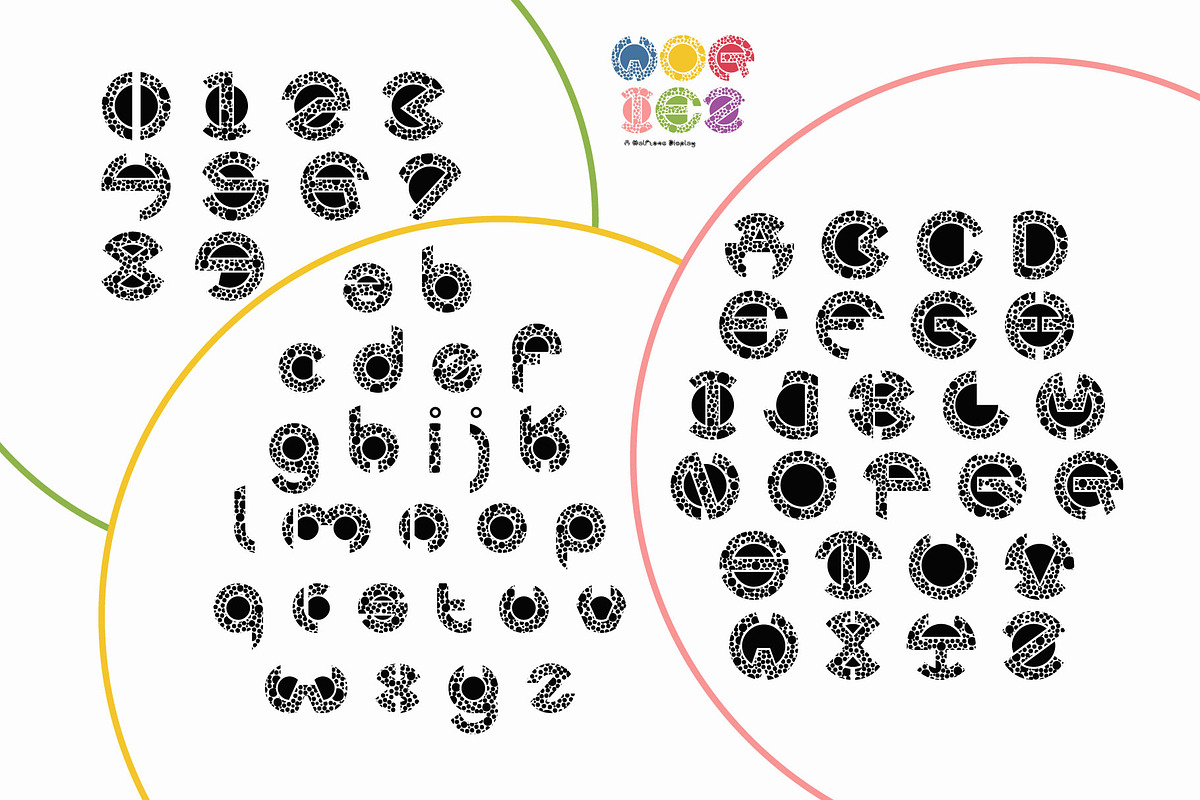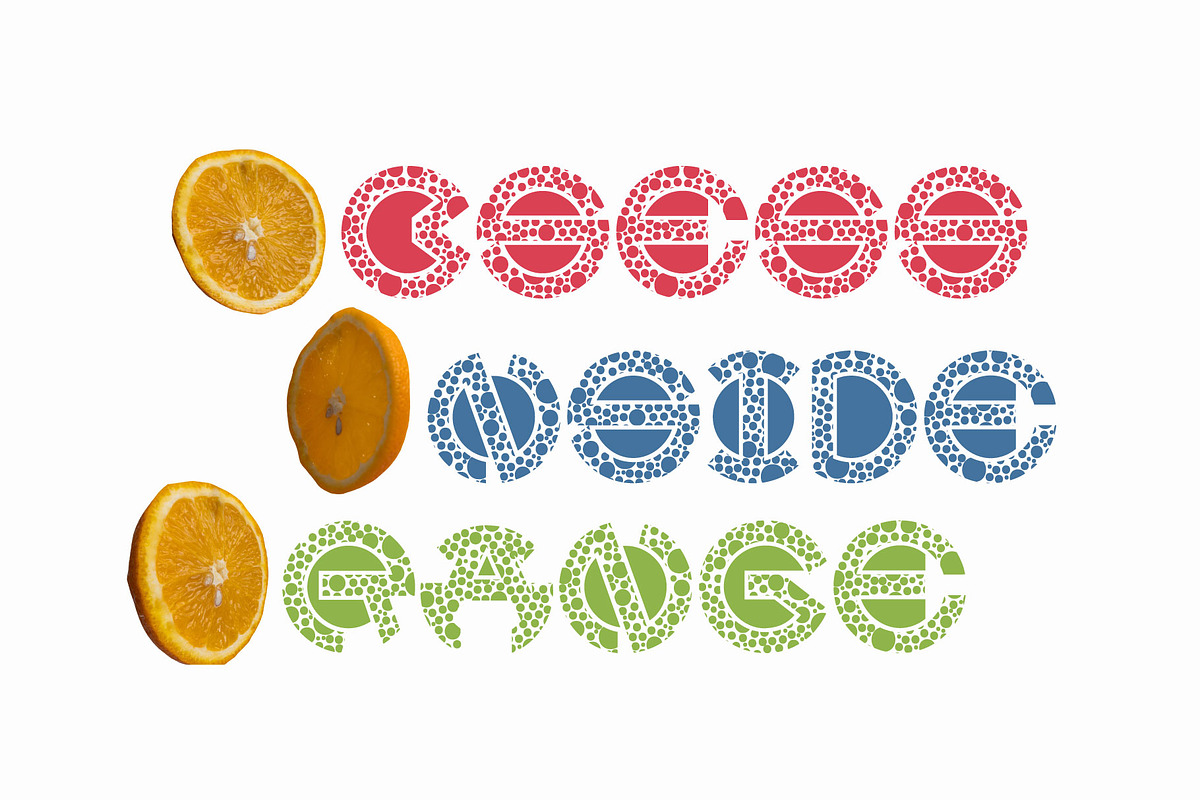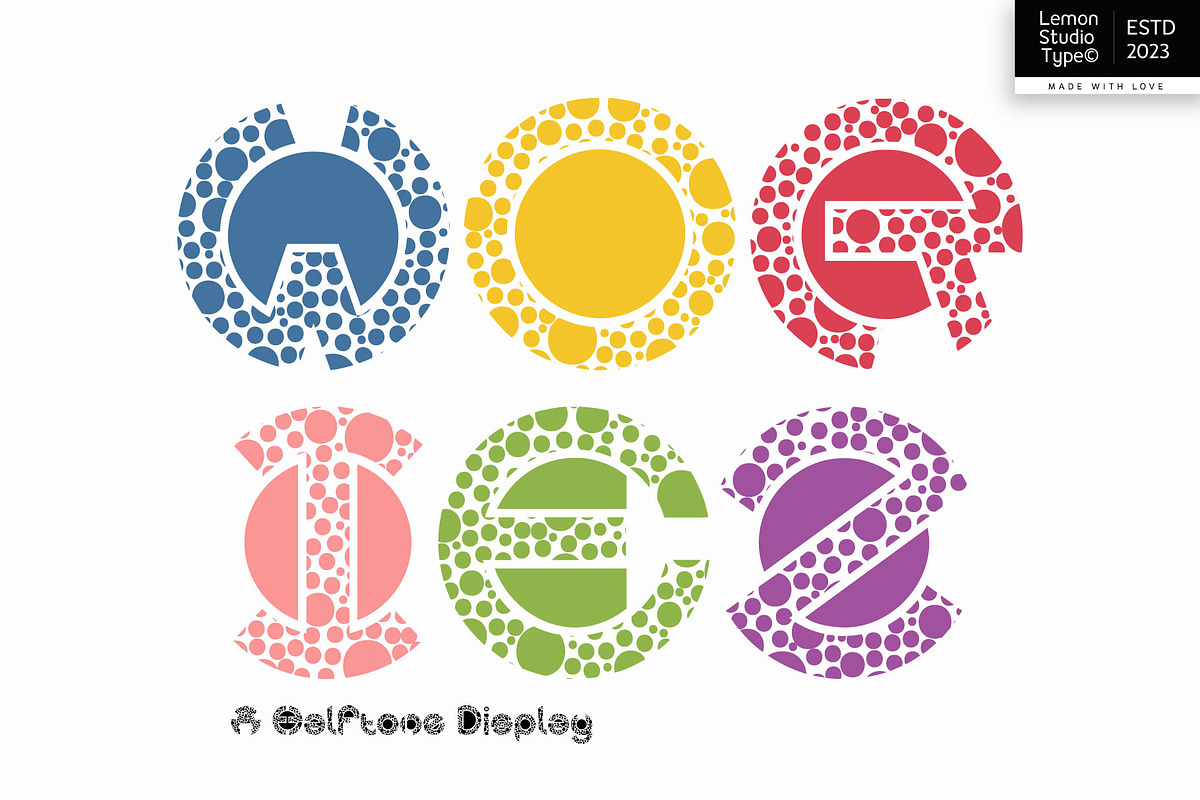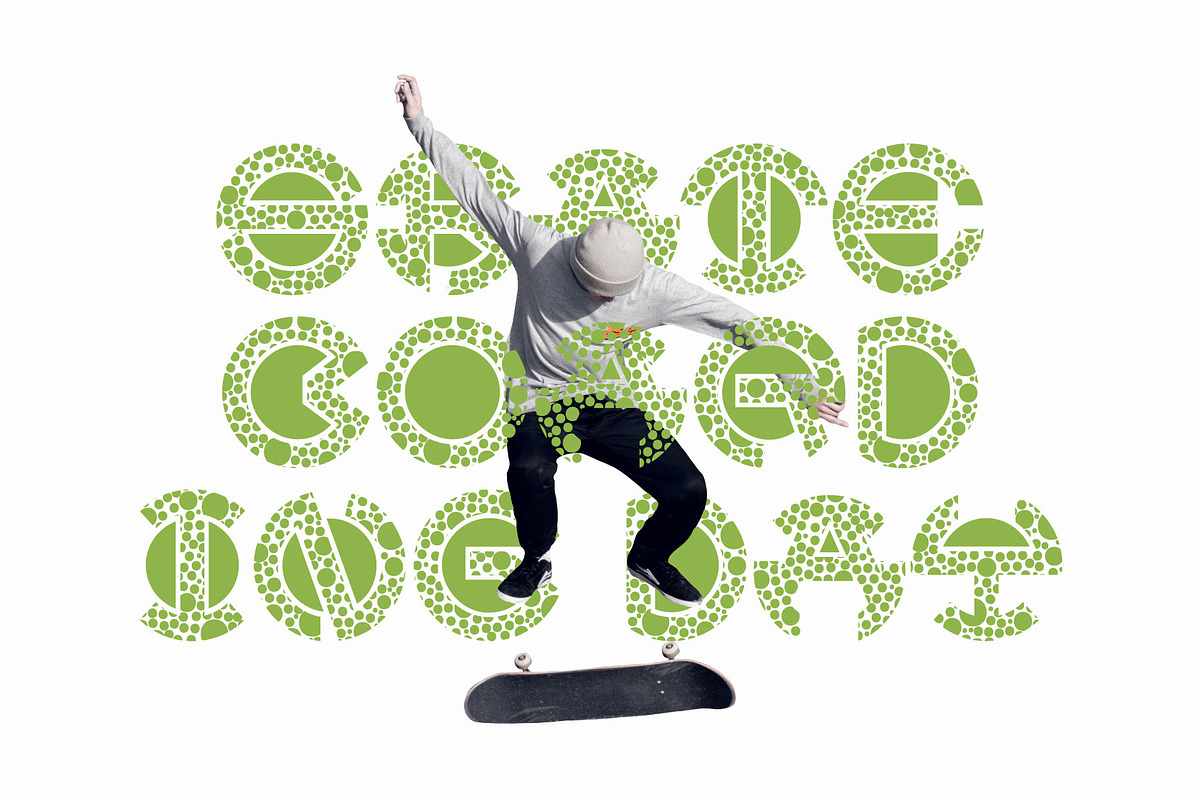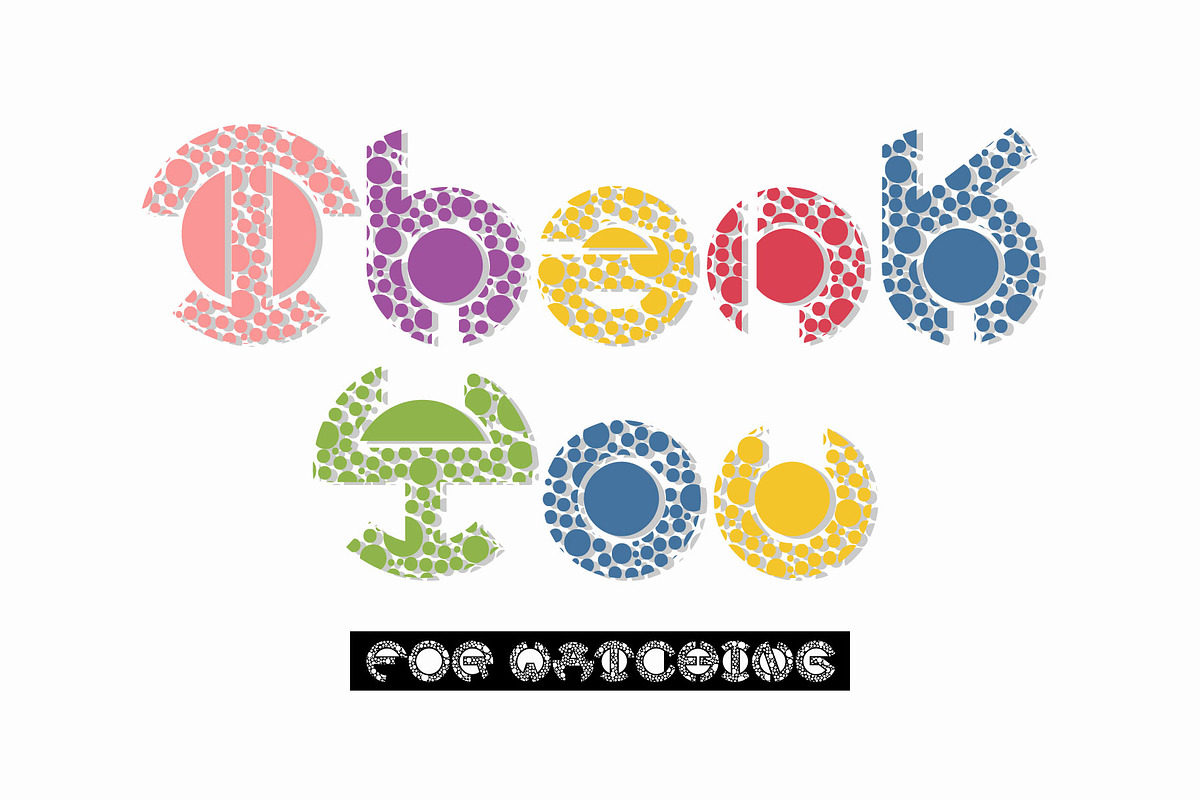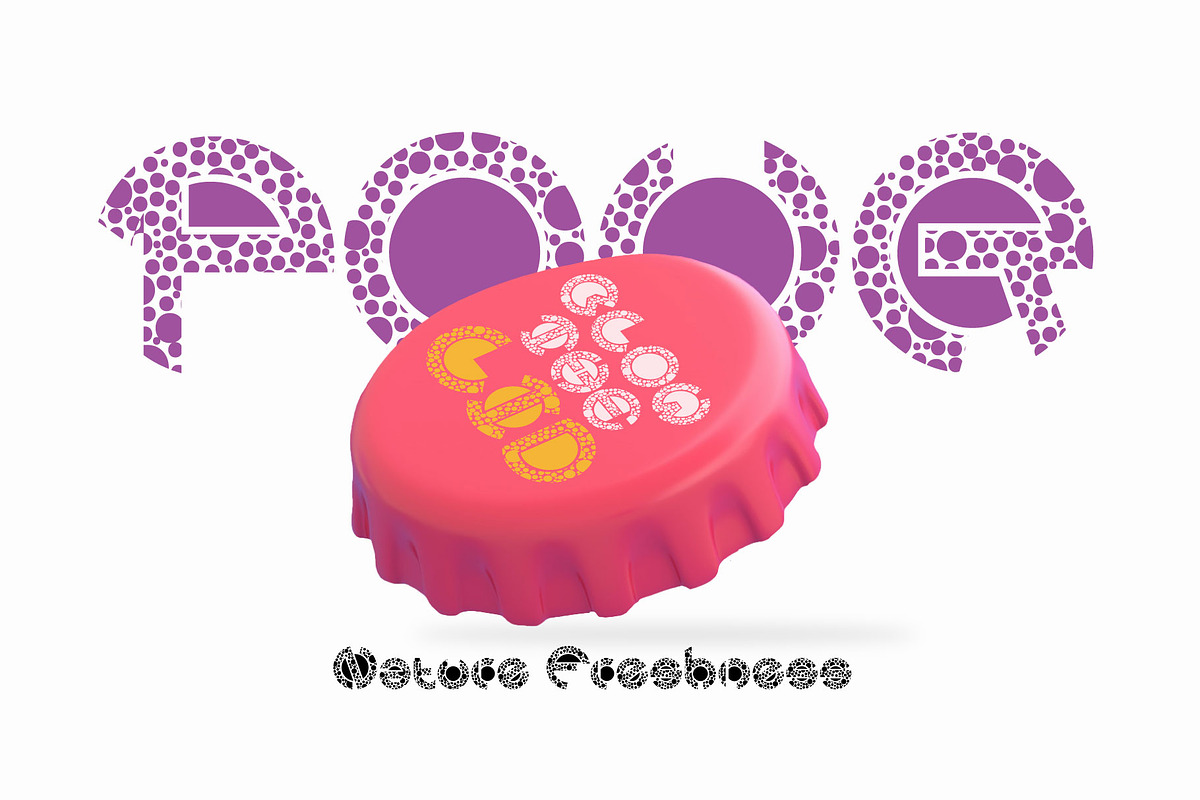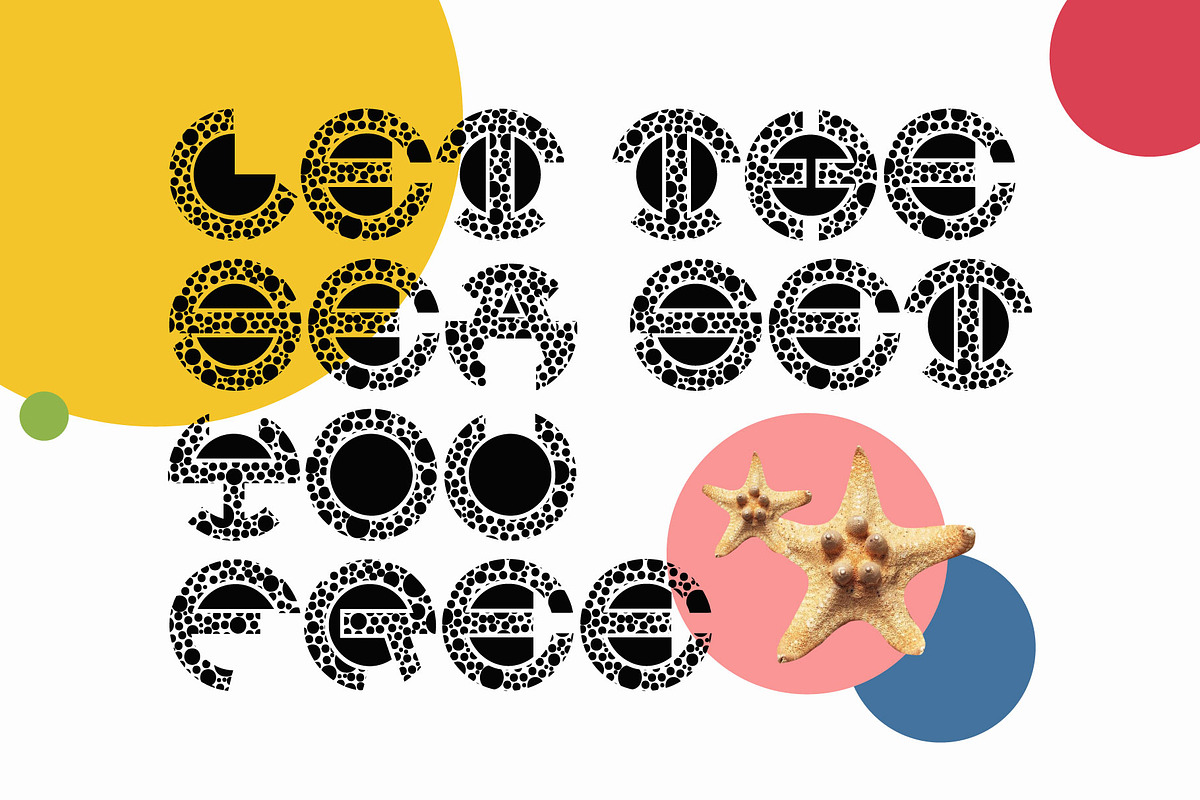
Woriez - Halftone Display
Woriez is a minimalist display font. It is combined with halftones. So, it gives the impression of a dot symbol and gives a very amazing impression, right?.
Perfect for display on posters, magazines, books, or use them to create unique and distinctive logos, packaging, invitations, websites, mockups and more.